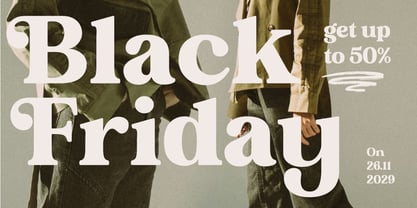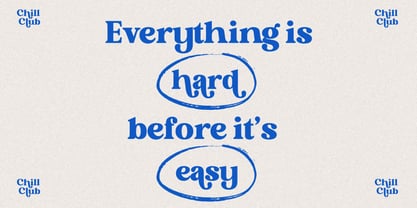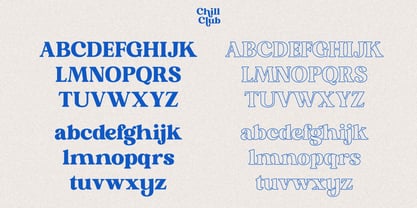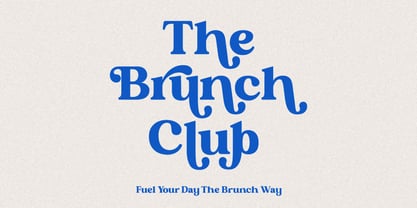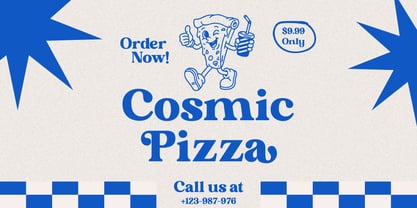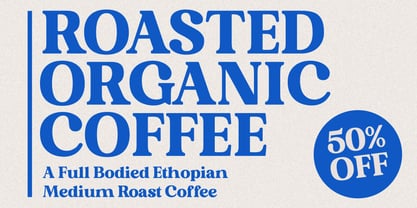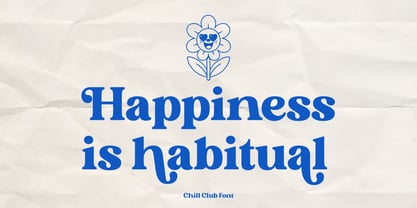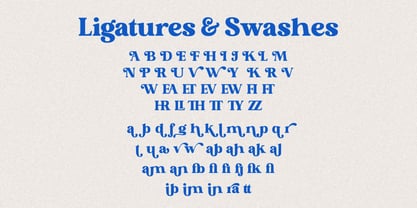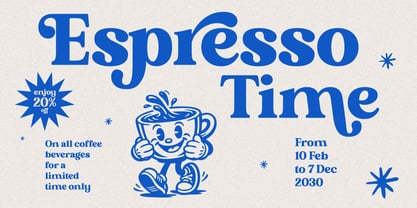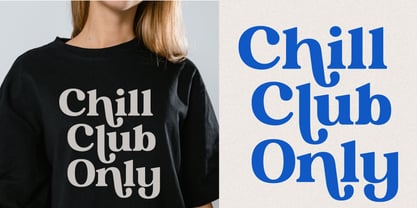
Chill Club
The Chill Club Font Family was designed by Zak M and published by Prestige Artsy Studio. Chill Club contains 2 styles and family package options. More about this family
Bring warmth, confidence, and retro charm to your designs with this bold vintage serif font, crafted for playful yet professional typography. Featuring chunky letterforms, soft curves, and expressive details, this typeface is perfect for branding, café logos, posters, packaging, apparel, and editorial layouts. Inspired by classic-era serif typography and reimagined for modern creatives, this font delivers a friendly, bold personality that instantly stands out. It’s ideal for lifestyle brands, coffee labels, social campaigns, clubs, slogans, and statement headlines that need a nostalgic yet confident voice. Designed with clean spacing and strong readability, the font works beautifully across both print and digital projects while maintaining a timeless, feel-good retro aesthetic. ✨ Bonus Included: This package comes with two font styles — a solid version and a matching outlined version, providing extra flexibility for layering, highlights, badges, posters, and bold retro compositions. The font is fully built and tested, supporting all European languages, making it suitable for global use across all major design platforms. 💡Perfect For • Logos & Brand Identity • Coffee & Food Packaging • Posters & Display Headlines • Apparel & Merchandise Designs • Editorial & Magazine Layouts • Social Media Graphics • Web & Digital Use 🌍 Font Features • Bold Retro Serif Style • Playful & Friendly Vintage Feel • Includes Solid + Outlined Versions • Strong Display Presence • Clean Spacing & Excellent Readability • Supports All European Languages • Works on Mac & Windows • Compatible with Adobe, Canva, Cricut & more